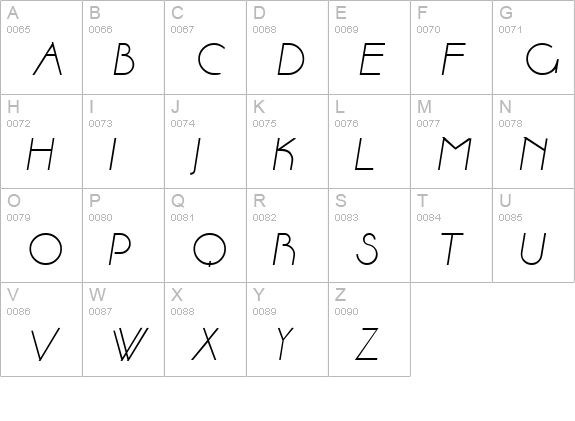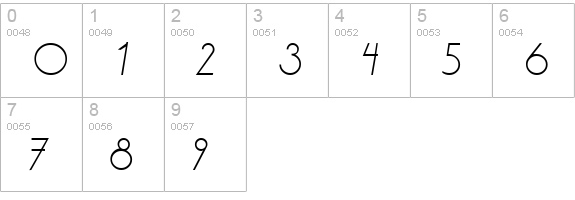
Aase Italic Font Details
Aase Italic is a distinctive, italic variant in the Aase typeface family \xE2\x80\x94 well suited to design and typography projects.
Aase Italic font is a stunning and elegant typeface that exudes sophistication and charm. With its graceful curves and delicate strokes, this font is perfect for adding a touch of refinement to any project. Designed with meticulous attention to detail, Aase Italic font offers a perfect balance between legibility and artistic flair. Its slanted italic style adds a sense of dynamism and movement, making it ideal for titles, headings, or any text that requires a touch of elegance. One of the best aspects of Aase Italic font is that it is completely free. Yes, you read that correctly! This beautiful typeface is freely available to download at FontsMarket.com. Whether you're a professional designer or a hobbyist, you can access this font without any cost or hassle. By choosing Aase Italic font, you not only gain access to a stunning typeface but also the freedom to express your creativity without any limitations. Its versatility allows it to be used in a wide range of projects, from branding and packaging to invitations and editorial designs. With its timeless appeal and effortless beauty, Aase Italic font is sure to captivate and inspire. So why wait? Visit FontsMarket.com today and download this incredible font for free. Elevate your designs and leave a lasting impression with the elegance and sophistication of Aase Italic font.